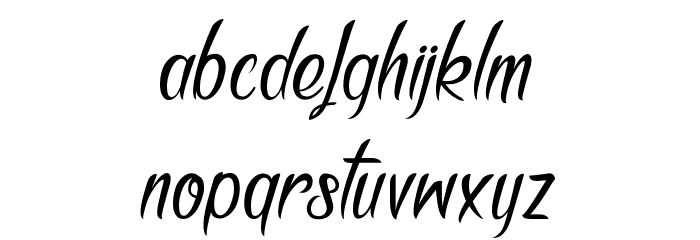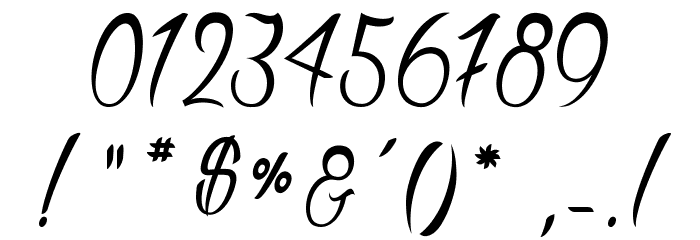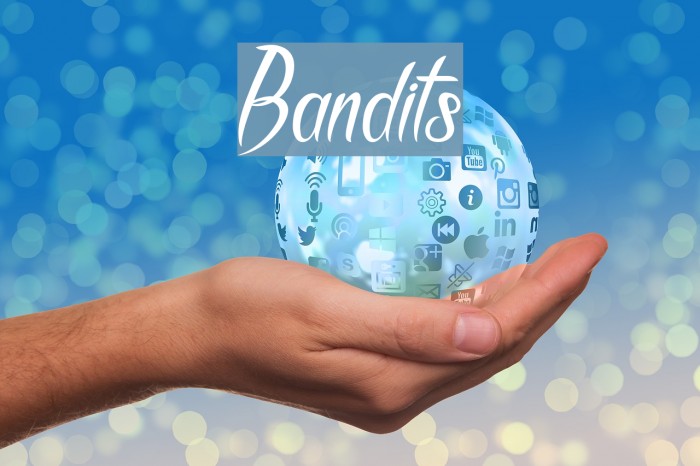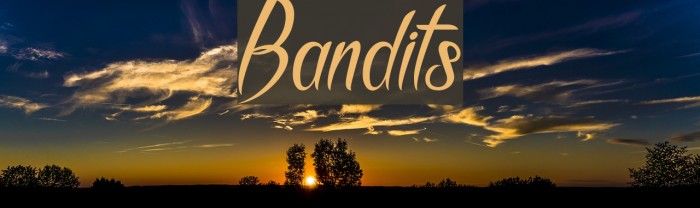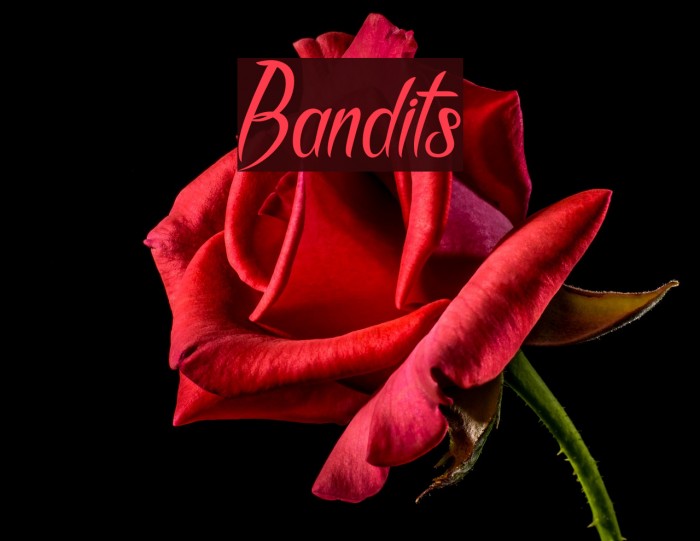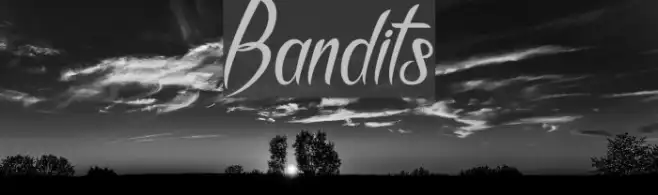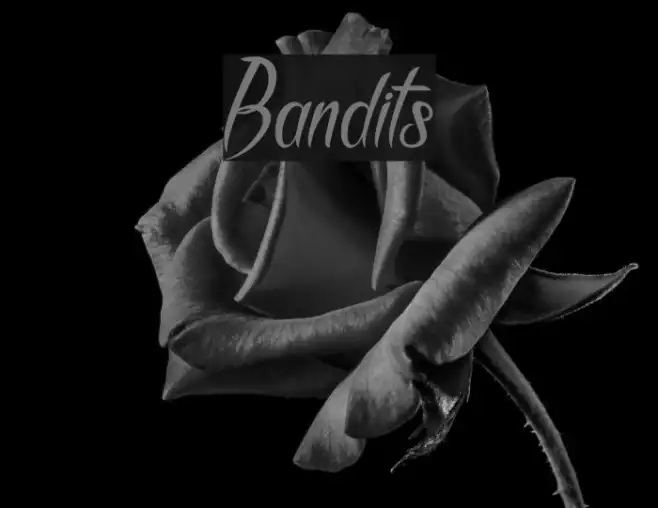
Bandits Font
This font features an elegant and dynamic script style with a slight slant, giving it a sense of motion and fluidity. The characters are connected in a cursive manner, with smooth curves and sharp edges that add a touch of sophistication. The uppercase letters are bold and prominent, while the lowercase letters maintain a consistent flow, enhancing readability. The numerals are distinct and maintain the same stylistic features as the letters, ensuring uniformity across the typeface. Special characters are designed to complement the overall aesthetic, making this font versatile for various applications.
A dynamic and elegant script font with a cursive style and smooth curves.
- Font: Bandits
- Proposed Projects: Ideal for wedding invitations, branding, logo design, and elegant packaging.
- Category: Script
- Overall Style: Elegant, Dynamic
- Use Case: Logos, Invitations, Branding